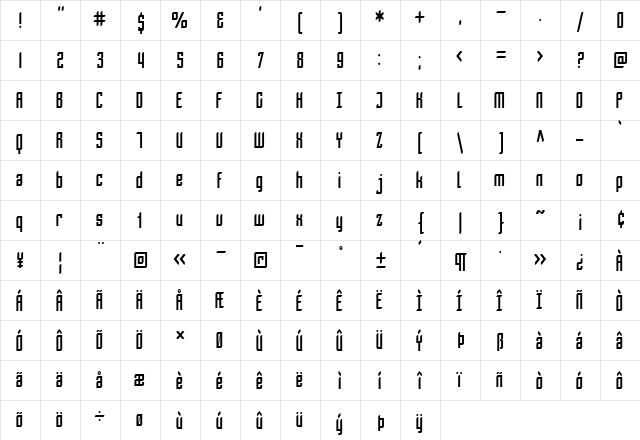
SF Piezolectric Condensed Regular
| Foundry | ShyFoundry |
| Designer | Derek Vogelpohl |
Design Context for SF Piezolectric Condensed Typeface
SF Piezolectric Condensed takes a measured approach to typography — its balanced proportions and neutral character make it a reliable workhorse for both digital and print work. Its narrow stance lets it pack a punch even in space-constrained designs.